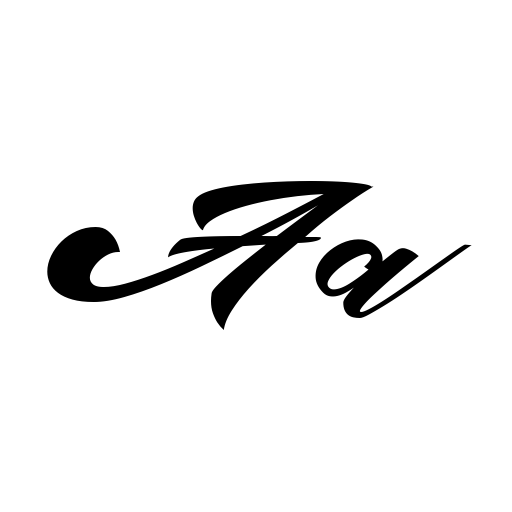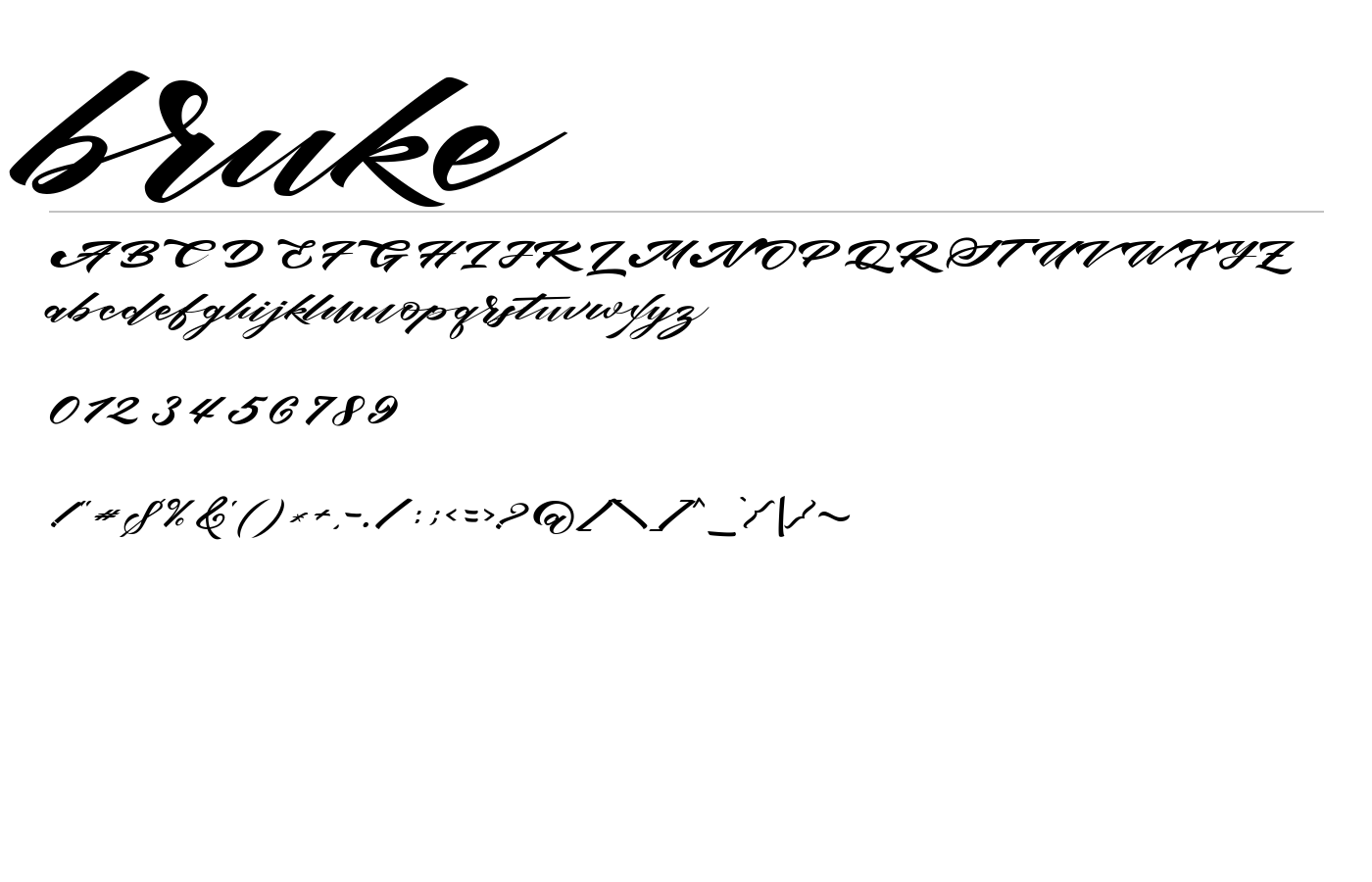
Bruke is an elegant, cursive script font characterized by its smooth, flowing strokes and moderate contrast between thick and thin lines. It features a natural, handwritten feel with distinctive calligraphic flair, making it ideal for sophisticated branding, personal invitations, and stylish logos. This font’s graceful letterforms bring a sense of refinement and warmth, perfect for design projects that seek a touch of classic charm and personality.
bruke Font
About bruke Font